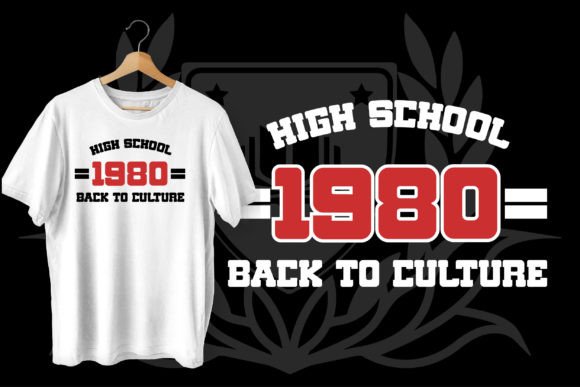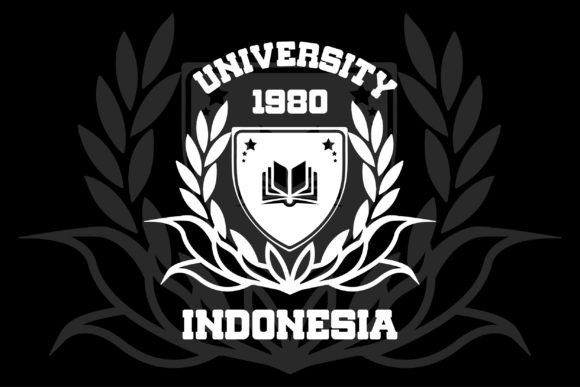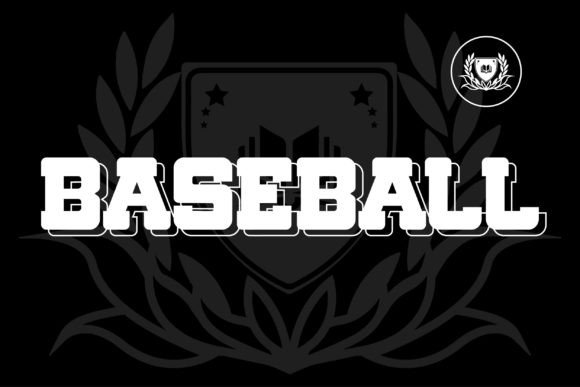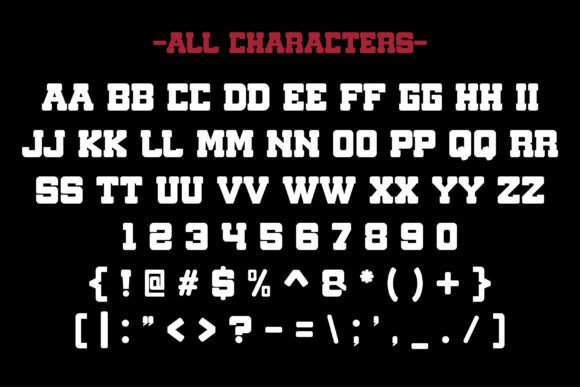
Varsity Vintage Font
Introducing Varsity Vintage is an exceptional college font that offers a sporty, varsity-style font, suitable for a wide range of professional branding applications. Whether you’re creating a logo with memorable typography, a unique watermark to protect your work, an eye-catching poster for an event, or eye-catching packaging for a product,
Varsity Vintage offers versatility while maintaining its distinctive charm. Each alphabet stands out with its athletic and academic design, encapsulating the spirit of classic college and high school aesthetics. Enhance your brand identity with the vibrant Varsity Vintage font.